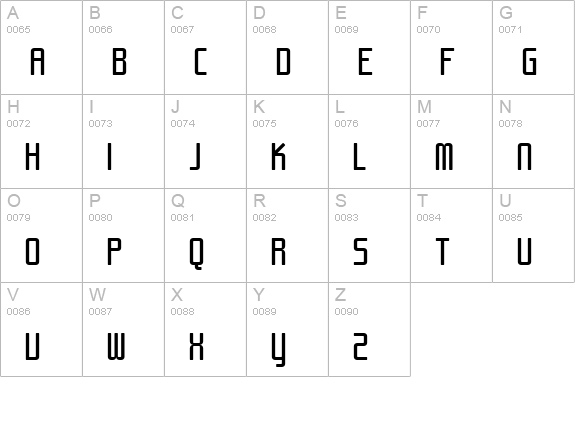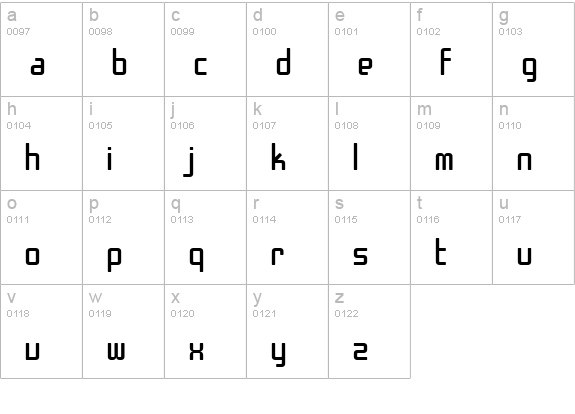
SF Chrome Fenders Font Details
SF Chrome Fenders font is a sleek and stylish typeface that exudes a modern and futuristic vibe. With its clean lines and sharp edges, this font is perfect for any design project that requires a contemporary touch. The chrome-like finish adds a touch of sophistication and elegance, making it suitable for a wide range of applications, from branding to advertising. What sets SF Chrome Fenders font apart is its versatility. It can be used for both headlines and body text, ensuring that your message will be clear and impactful. The font's strong presence on the page commands attention and makes a lasting impression. One of the best things about SF Chrome Fenders font is that it is completely free to download at FontsMarket.com. This means that you can access this stunning font without any cost, making it an excellent choice for budget-conscious designers and enthusiasts. Whether you are working on a website, a poster, a logo, or any other design project, SF Chrome Fenders font is sure to elevate your work to the next level. Its modern aesthetic and elegant design make it a standout choice among other fonts. Don't miss out on the opportunity to enhance your designs with this remarkable font, freely available for download at FontsMarket.com.